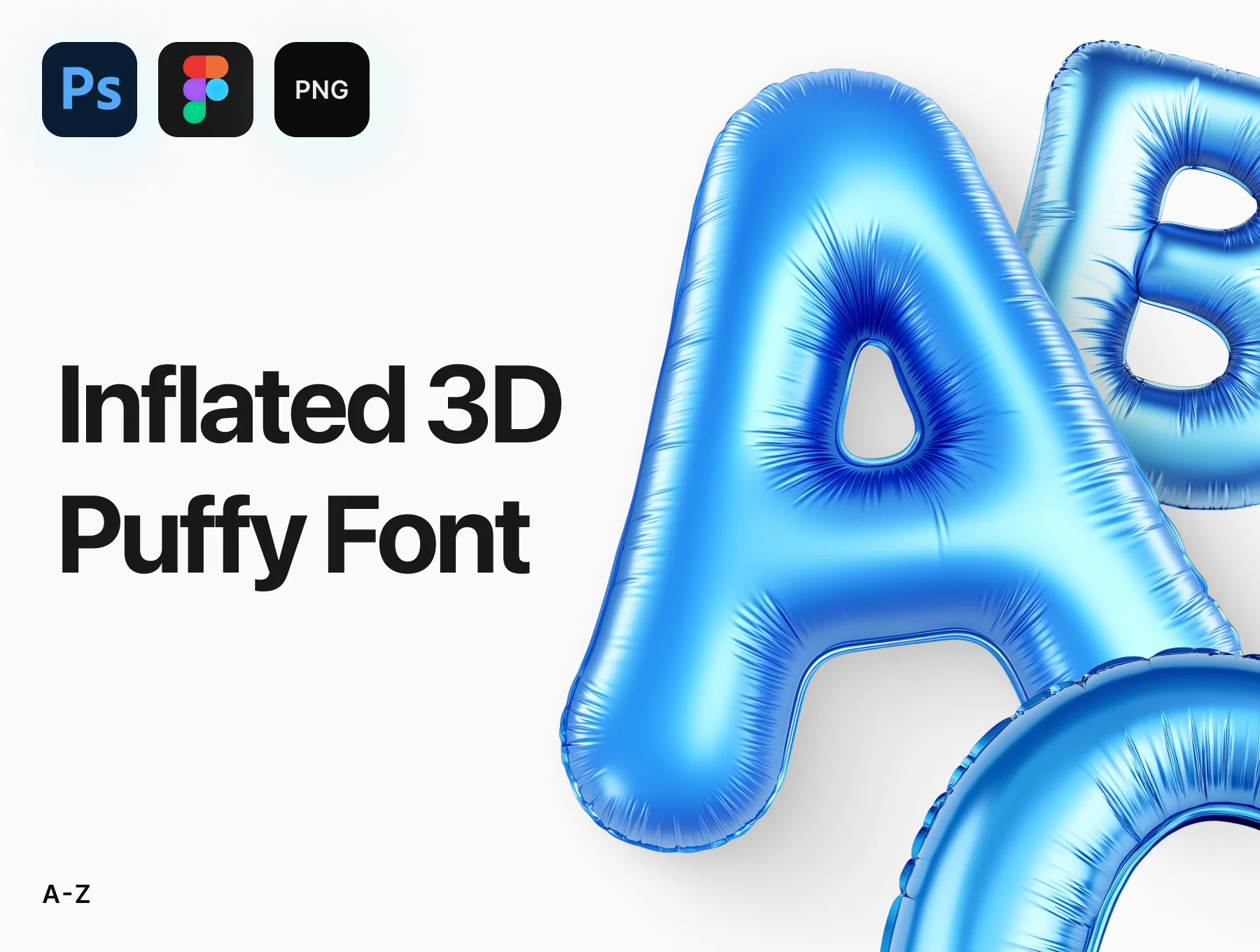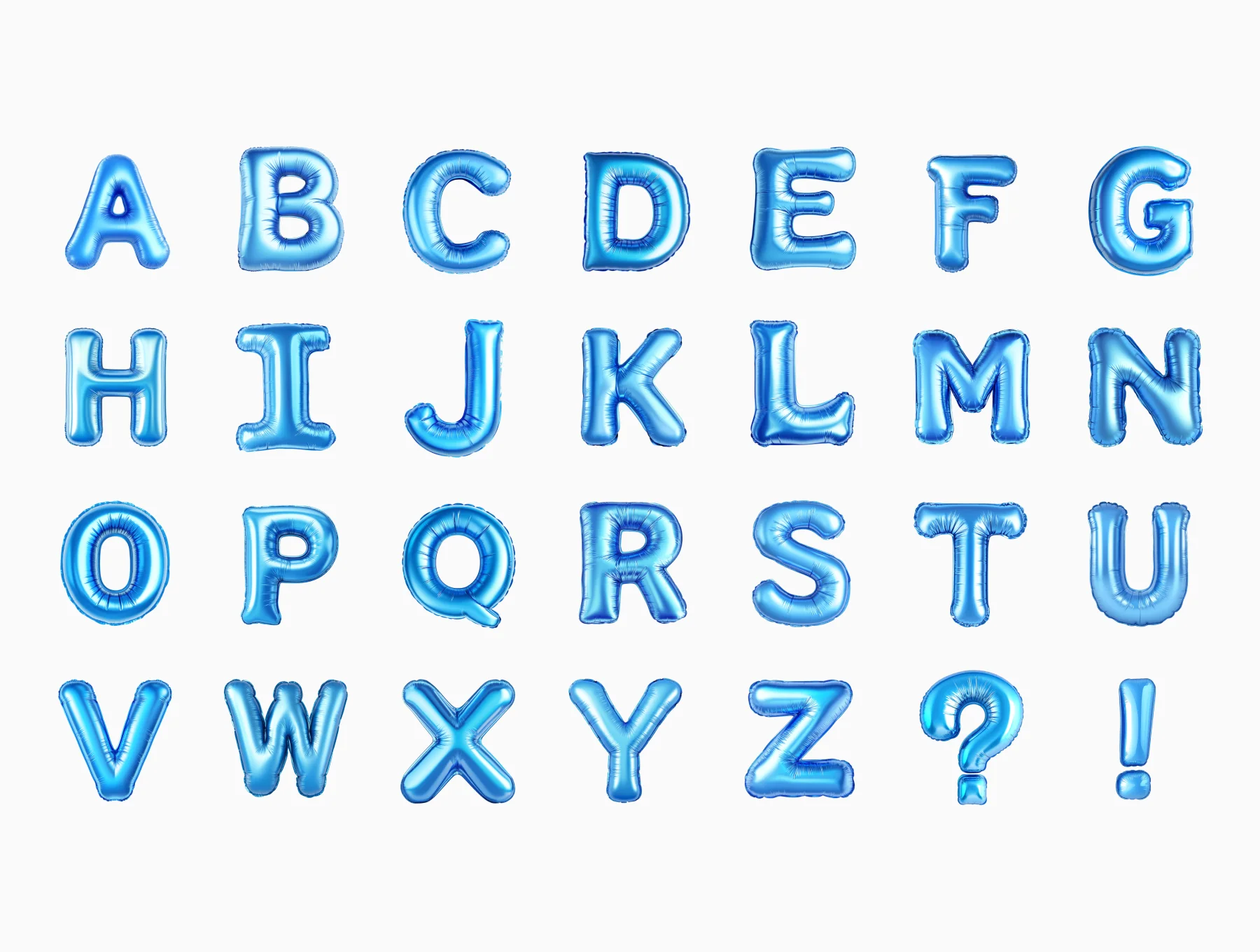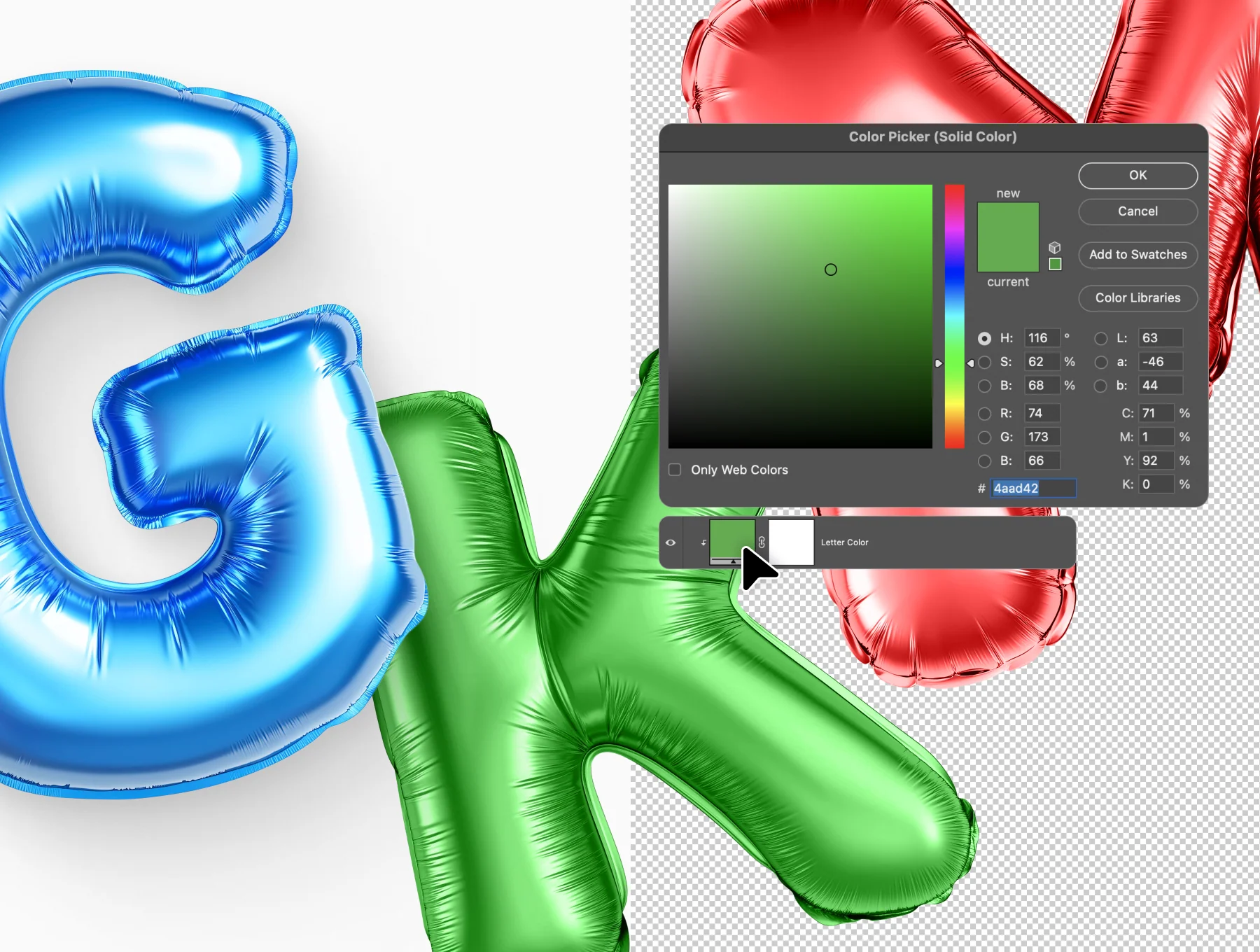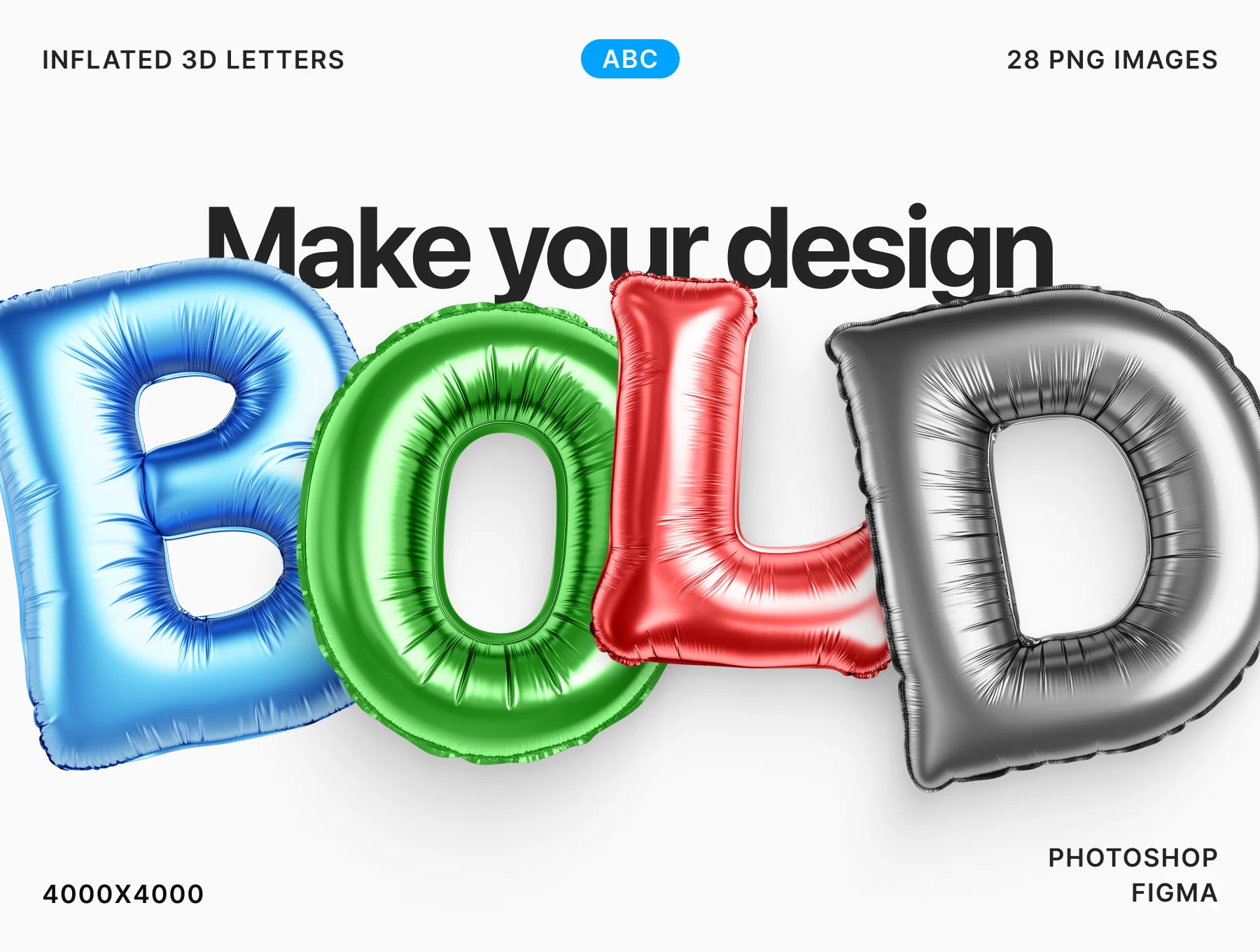
Inflated 3D Puffy Font
Blown-Up 3D Bubble Typeface
Bring a lively, whimsical feel to your artwork with this inflated 3D puffy font set. It includes 28 crisp PNG files at 4000x4000px, ideal for standout lettering, striking titles, and imaginative design work.